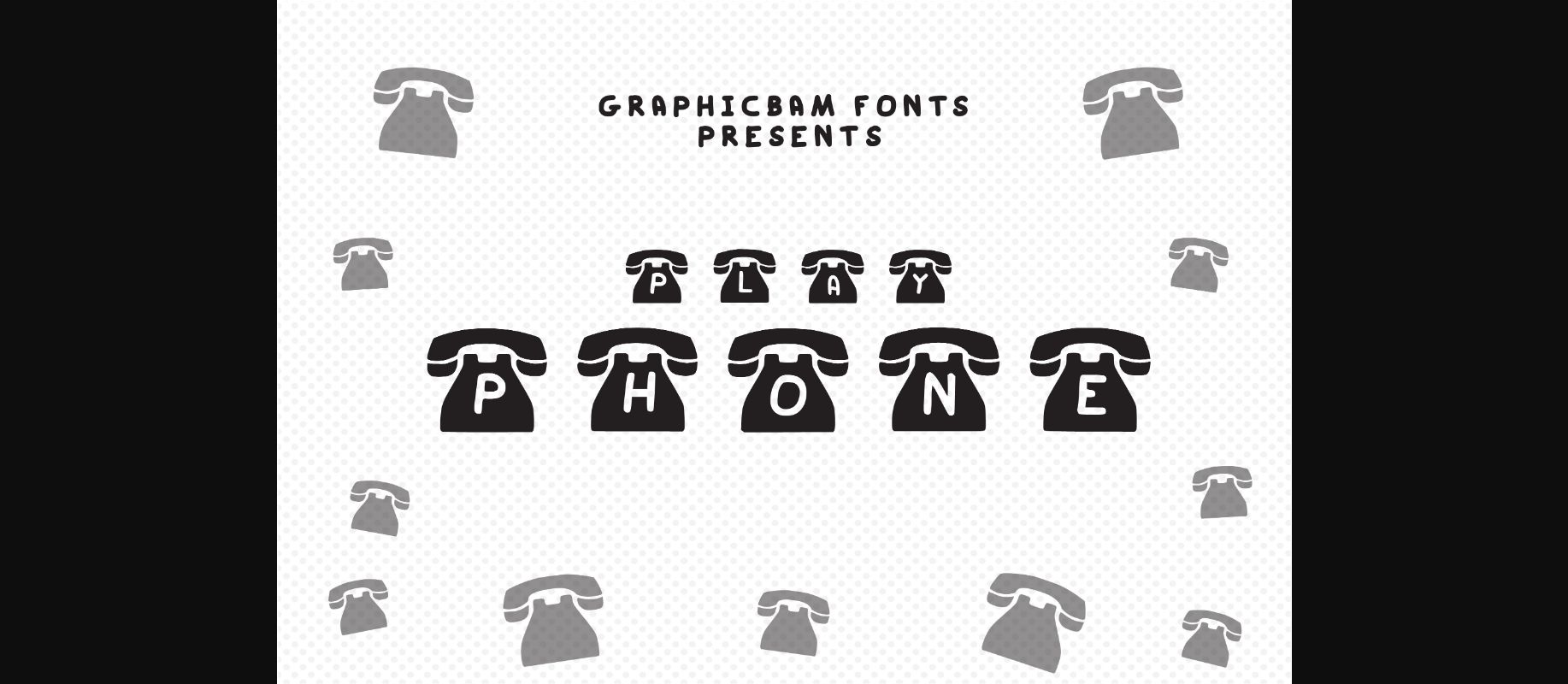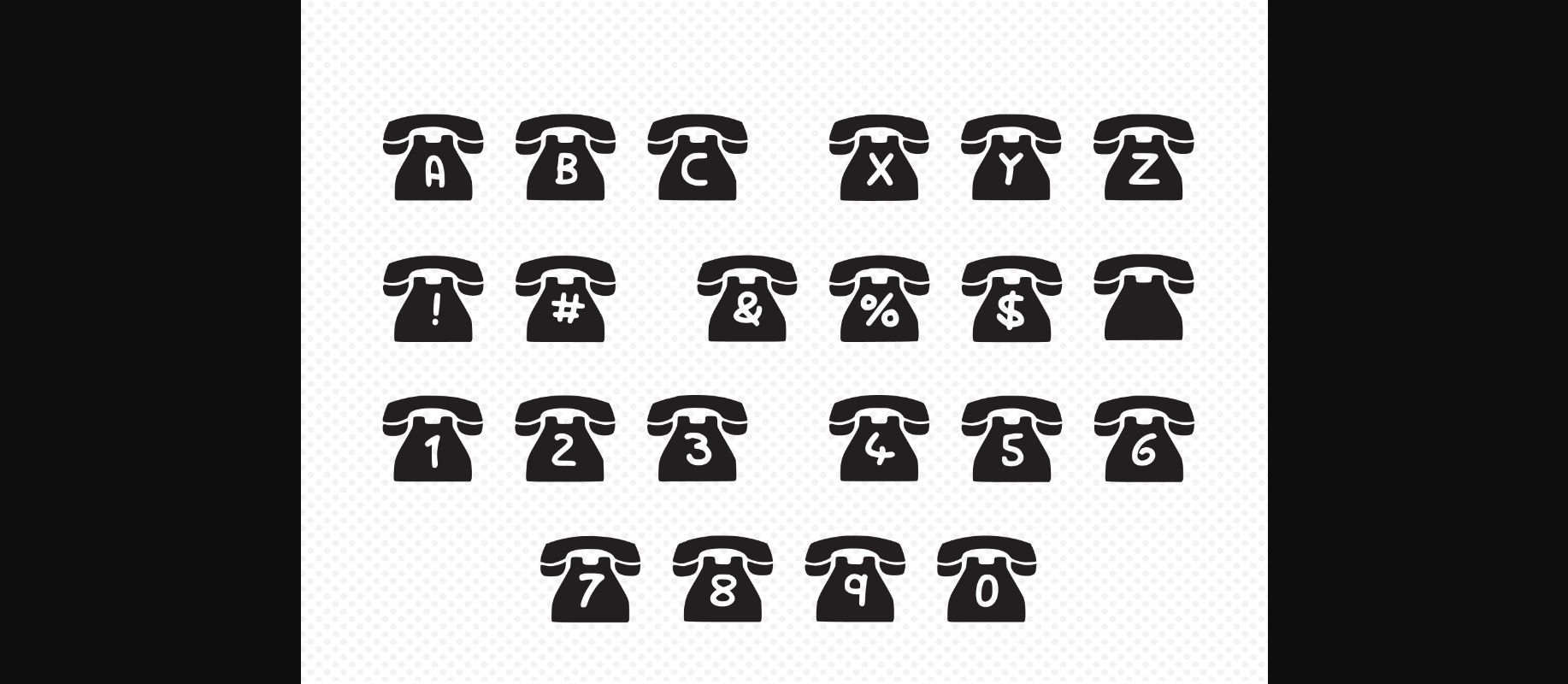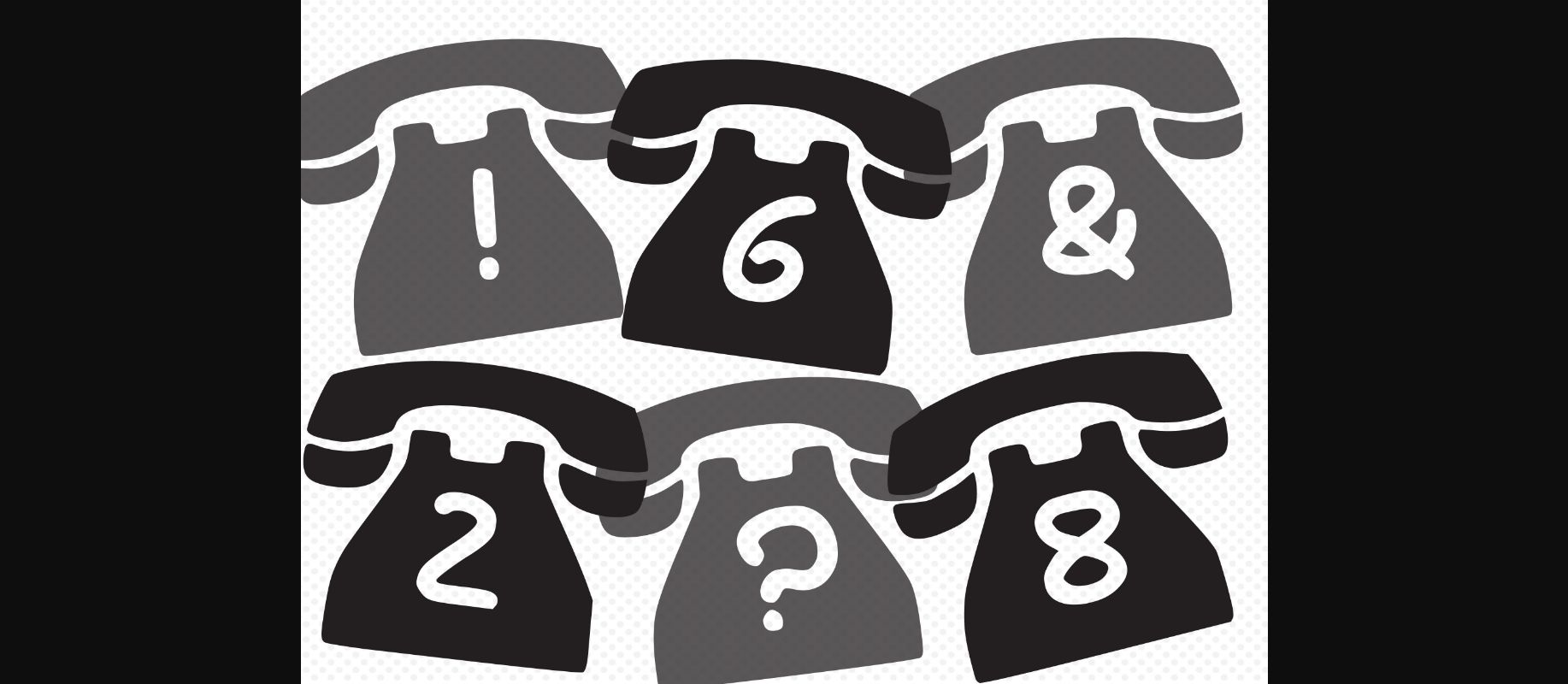
Play Phone Font
About Play Phone Font
Keep in touch with your audience by using this creative and unique decorative font. Play Phone is the perfect typeface for bold ideas, and it will make your designs look more inviting and fun.